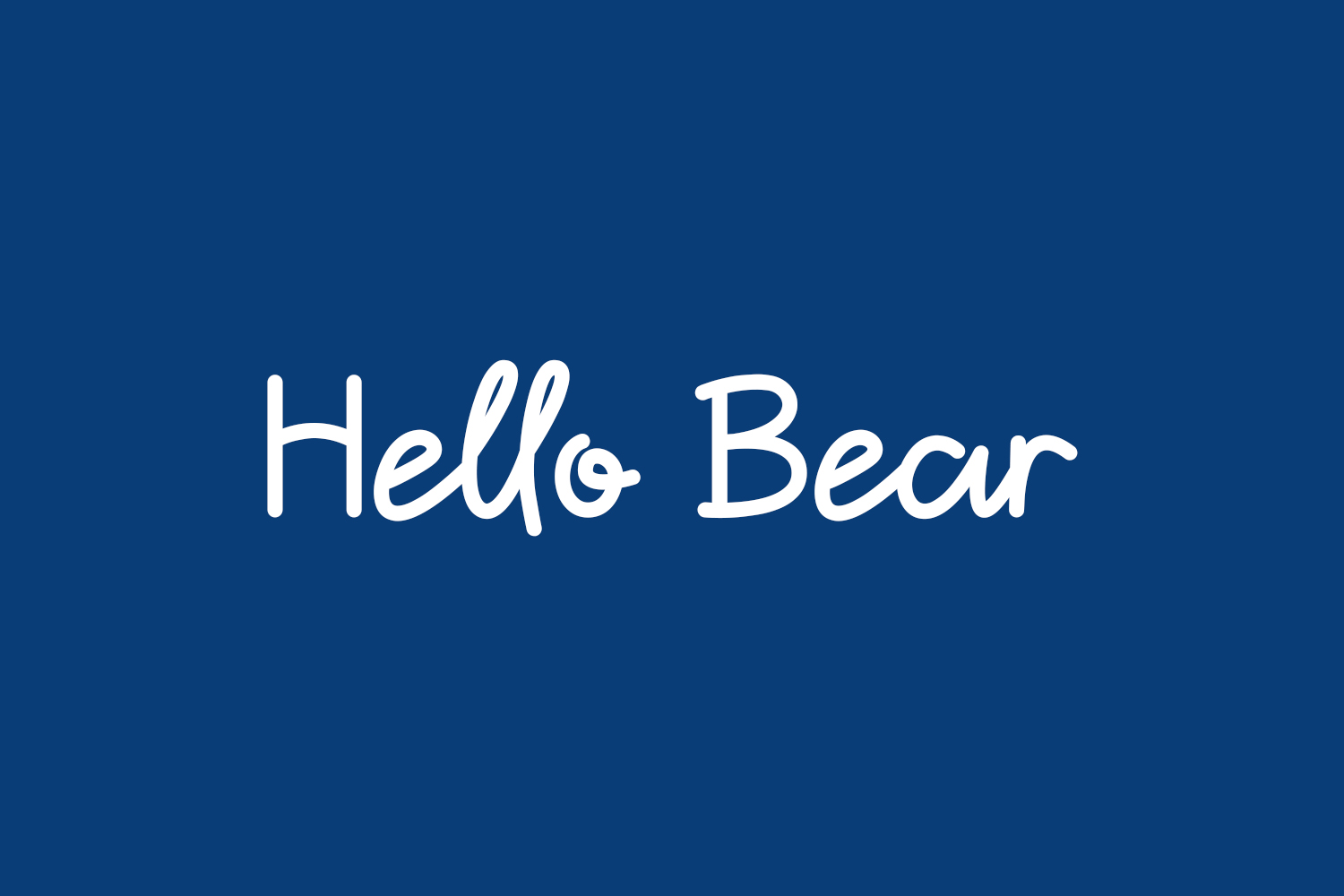
Hello Bear Free Font is a delicate and cute script font. It is very suitable for invitation cards, illustrations, quotes, branding, logos, book covers, children’s clothes, packaging, and many others. Hello Bear Free Font is free for personal use only. Please purchase the full version for commercial use.
Designed by Rangga Putra Budi Pratama